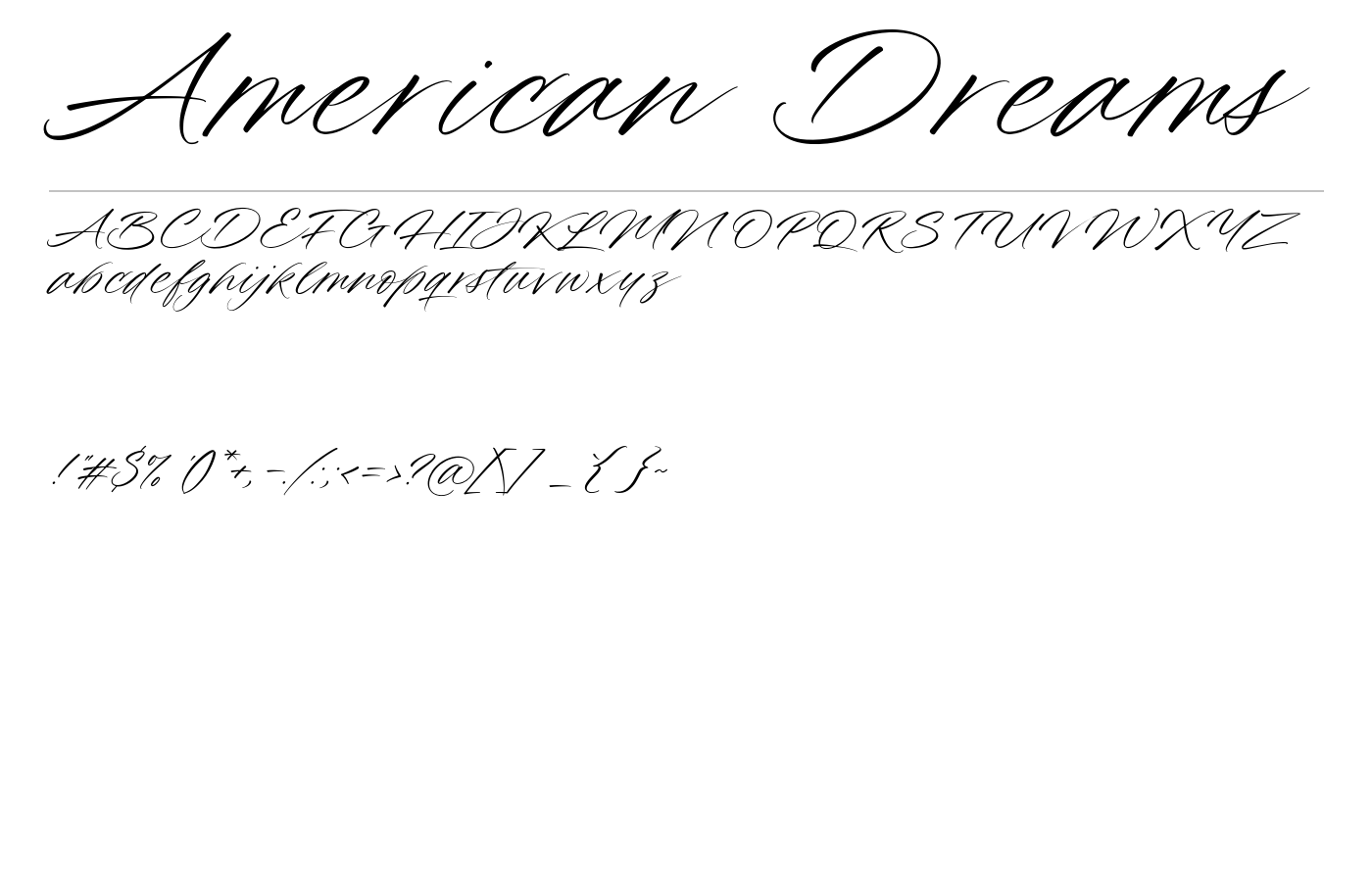
American Dreams is an elegant script font characterized by its flowing, delicate strokes and refined calligraphic style. It offers a graceful and sophisticated feel, making it perfect for invitations, luxury branding, and stylish headlines where a touch of classic charm is desired. Its narrow, fluid letterforms create a sense of intimacy and personal expression, ideal for projects that want to convey elegance and warmth.
American Dreams Font
About American Dreams Font